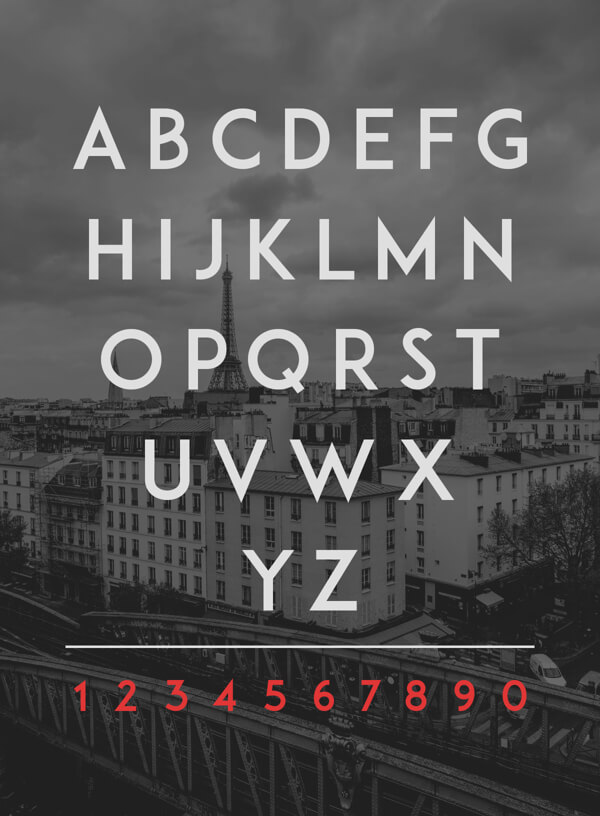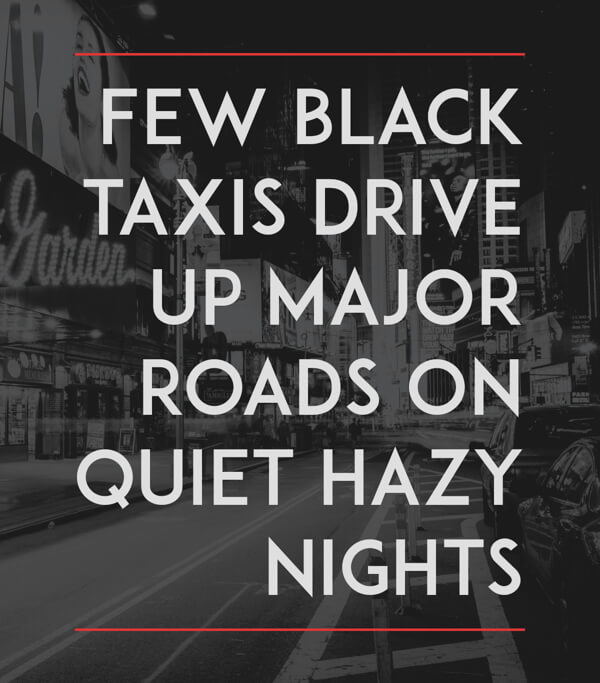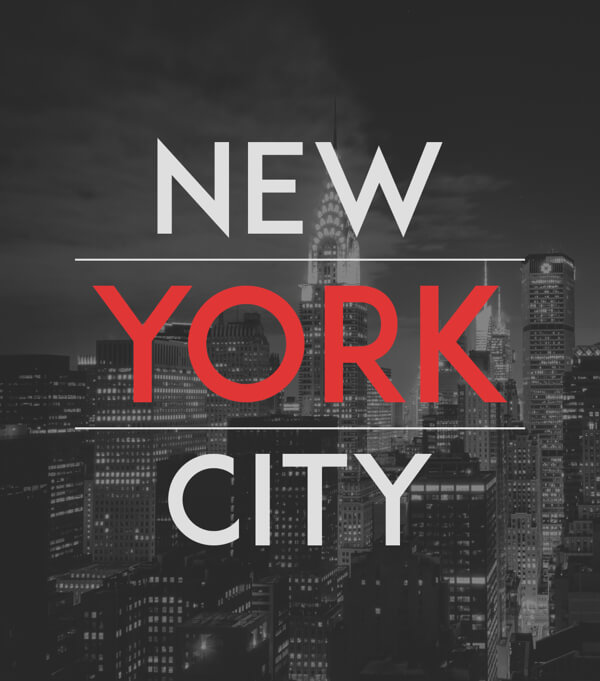
Free font ADAM.CG Pro
Free for personal use this great sans-serife typeface, as the author says, is inspired in Futura, it’s sharp and clean,
all in caps would make great headlines